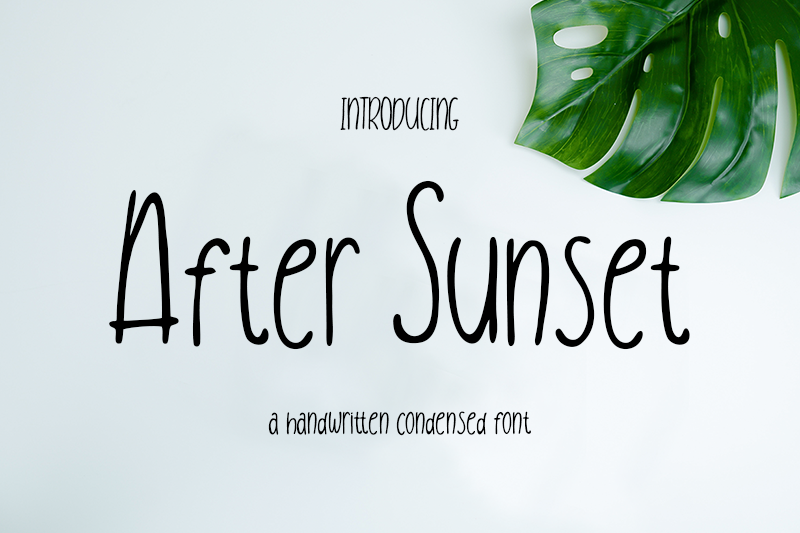
After Sunset Handwritten Font
After Sunset is a clean handwritten condensed sans-serif and playful, cute, unique, funny with lots of personality.
After Sunset is perfect for branding projects, logo, wedding designs, social media posts, advertisements, product packaging, product designs, label, photography, watermark, invitation, stationery and any projects that need handwriting taste.